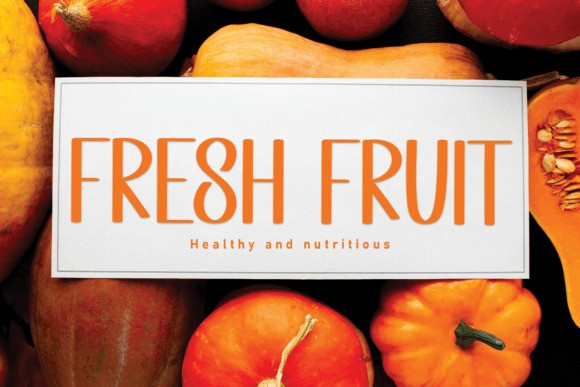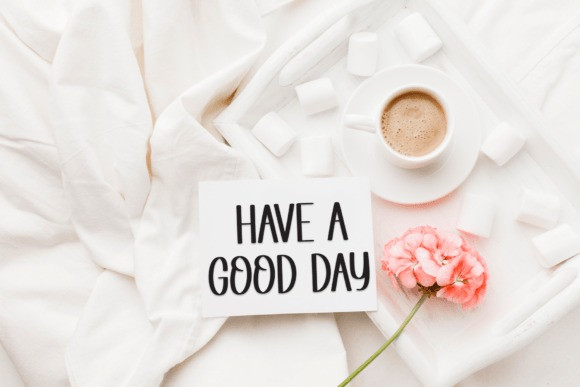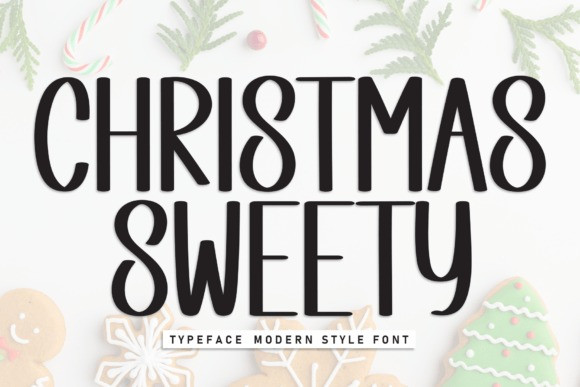
Christmas Sweety Font
Christmas Sweety Font is a festive display font that brings a touch of sweetness to your holiday designs. With charming letterforms reminiscent of handwritten greetings, this font captures the joyful spirit of Christmas. Perfect for creating cheerful banners, festive cards, and delightful seasonal messages, Christmas Sweety adds a sprinkle of holiday magic to your creative projects.